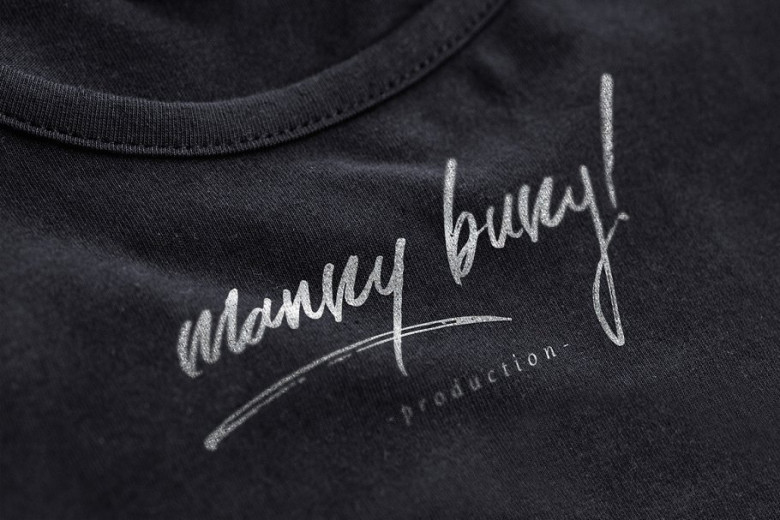
Connoisseurs Typeface
You’ll recognize the wonderful and exciting with this typeface, which is perfection in every handbrush. Introducing Connoisseurs Typeface! Connoisseurs was designed by thirtypath.This is a handbrush. The style of handwriting and irregular but still elegant, and you will enjoy to use this font style. Connoisseurs is perfect for branding projects, homeware designs, product packaging – or simply as a stylish text overlay to any background image.